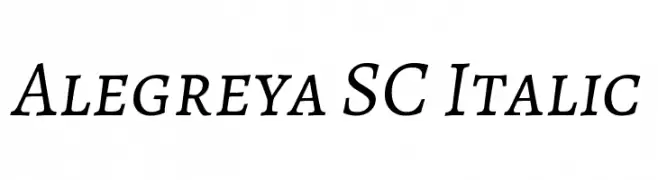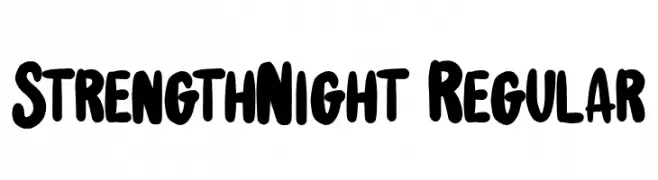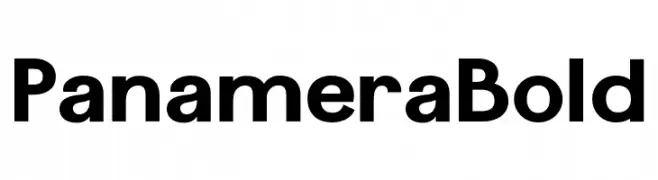
An elegant serif font with an italic style, offering a classic and sophisticated look.
A bold, rounded, and playful font with a hand-drawn appearance.
A bold, modern sans-serif font with clean lines and strong presence.
A bold, brush-style font with an expressive and dynamic appearance.
A bold, geometric font with a modern, tech-inspired aesthetic.